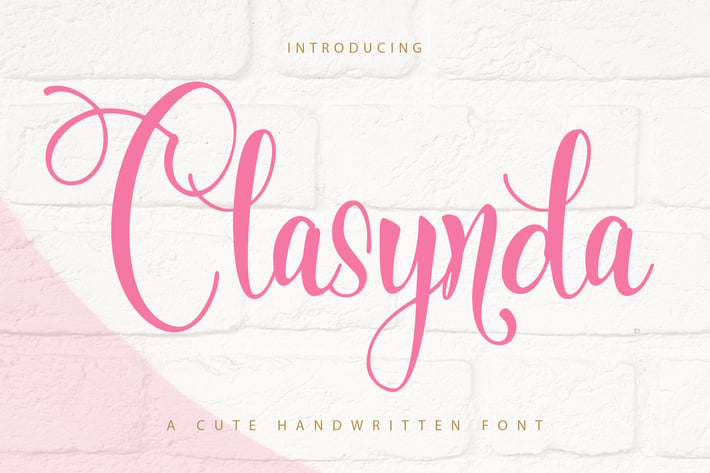
Clasynda | A Cute Handwritten Font
Clasynda | A Cute Handwritten Font with a calligraphy style, So beautiful on invitation like greeting cards, branding materials, business cards, quotes, posters, and more!